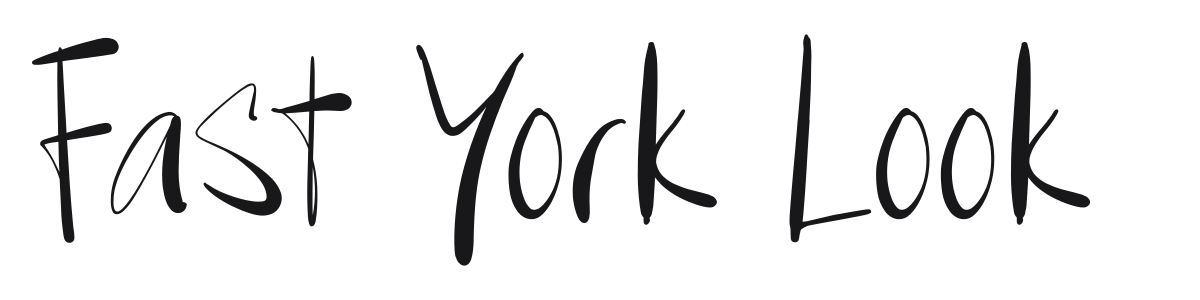
Fast York Look
by Tera Asset Garage
Fast York Look is a casual brush script with the loose, energetic quality of real hand lettering done quickly with ink. Thick downstrokes taper into hairline upstrokes across every connection, and the slightly erratic baseline keeps it feeling genuinely spontaneous rather than manufactured. It works best at large sizes where that raw, gestural energy reads clearly.